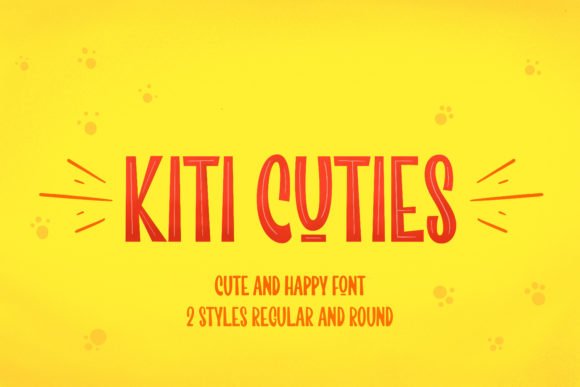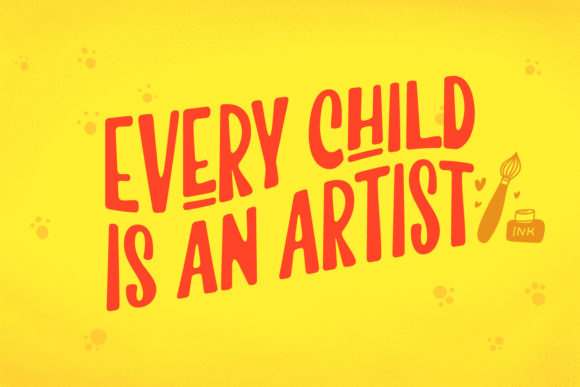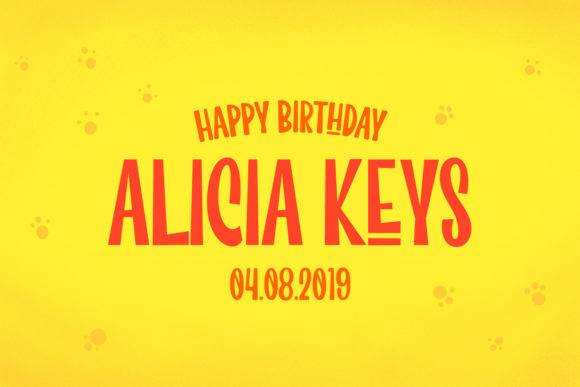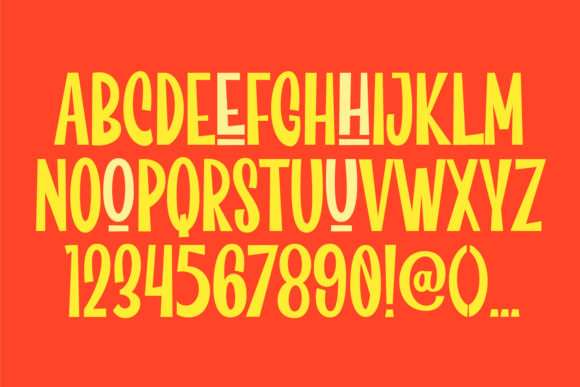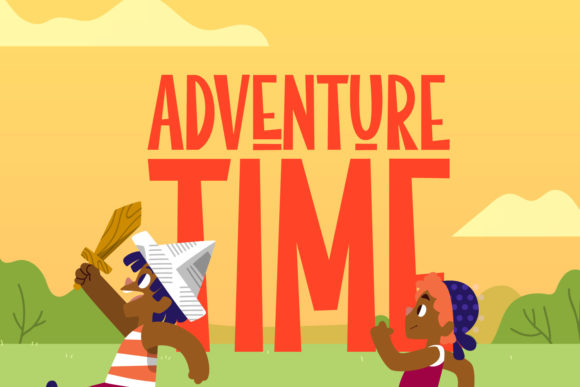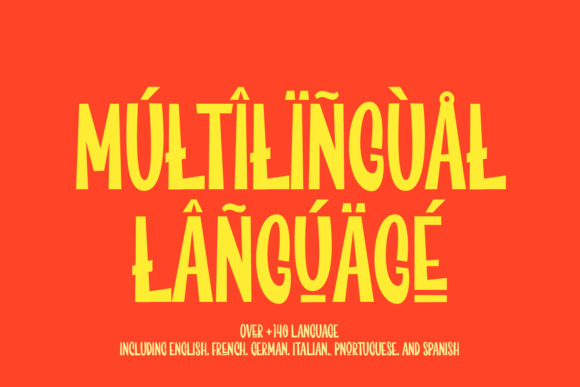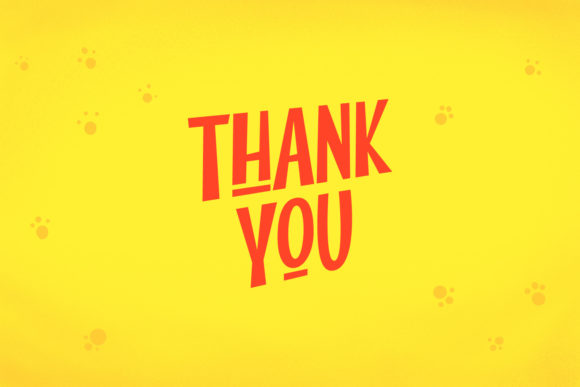
Unleash Your Creativity with Kiti Cuties Font
Have you ever been scrolling through social media, and suddenly, you stumble upon a post that makes you stop and think, “Wow, I wish I had created that!”? That’s exactly what happened to me when I saw a beautifully designed graphic with the Kiti Cuties Font. The playful, handwritten feel of the font immediately caught my attention, and I knew I had to learn more about it.
Kiti Cuties Font is a trendy and friendly display font that’s perfect for designers looking to add a personal touch to their creations. Whether you’re a graphic designer, a social media manager, or a content creator, this font is sure to elevate your designs and make them stand out. With its unique style and endless possibilities, Kiti Cuties Font is a valuable addition to any designer’s toolkit.
Kiti Cuties Font Key Features
- Font Family: Kiti Cuties, a cute and playful font designed for various digital and print applications.
- Unique Characteristics: Features a unique, hand-drawn style with rounded edges and playful flourishes, adding a touch of whimsy to any design.
Kiti Cuties Font Review
Overall, I think Kiti Cuties Font is a sweet addition to any designer’s collection. The ✨ playful and whimsical feel it brings to a design is perfect for projects that require a touch of innocence and charm.
- ✨ Unique and varied character set, making it ideal for creating attention-grabbing headlines.
- ✨ Excellent for projects targeting a younger audience, such as children’s books, nursery decor, or even birthday party invitations.
- ✨ Easy to read and recognize, even at smaller font sizes.
- ⚠️ Limited character set, which may not be suitable for longer blocks of text or more complex designs.
- ⚠️ Some characters may not be as well-formed or consistent as others, which could affect the overall aesthetic.
- ⚠️ Not ideal for projects requiring a more professional or corporate tone.
While Kiti Cuties Font is not a one-size-fits-all solution, it’s perfect for designers looking to add a touch of magic to their projects. With its ✨ unique character set and ✨ playful feel, it’s sure to bring a smile to the faces of your audience.
Tips for Getting the Most Out of Kiti Cuties Font
Use Kiti Cuties Font for whimsical and playful designs, such as children’s party invitations, baby shower invitations, and greeting cards.
Combine Kiti Cuties Font with other fonts and graphics to add depth and interest to your design.
Kiti Cuties Font is perfect for:
Children’s party invitations and decorations
Baby shower invitations and decorations
Greeting cards and gift tags
Whimsical and playful social media graphics
What is the recommended font size for optimal readability with the Kiti Cuties Font?
For optimal readability, we recommend using the Kiti Cuties Font at a minimum size of 12 points (24 pixels) for body text and 18 points (36 pixels) for headings. However, font size may vary depending on your design, target audience, and viewing distance. Experiment with different font sizes to find the perfect balance for your project.